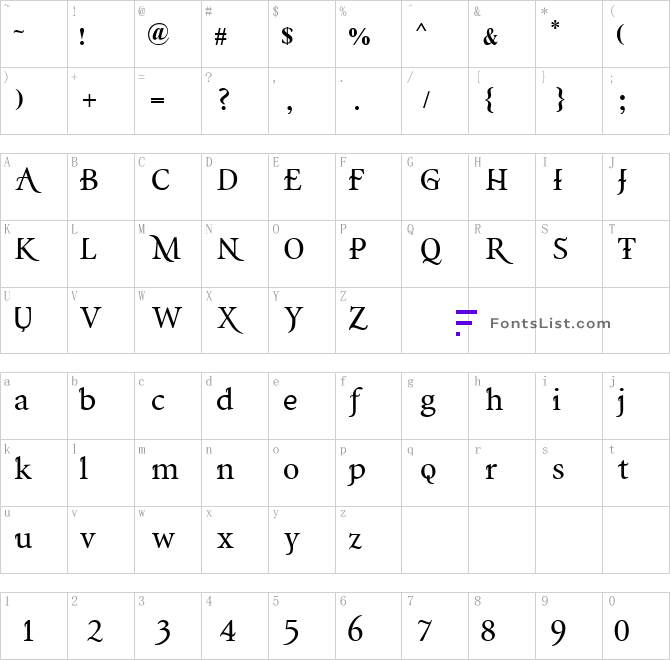
- Font Name:AB Nirvana*
AB-Nirvana-.ttf is a very beautiful artistic font, AB-Nirvana-.ttf is widely used in the design and printing of various books and pictures,AB-Nirvana-.ttf has a strong visual impact,AB-Nirvana-.ttf is a commonly used font in newspapers, magazines and books, and is used in posters, e-commerce Poster design, store design, logo design, font design and other fields.AB-Nirvana-.